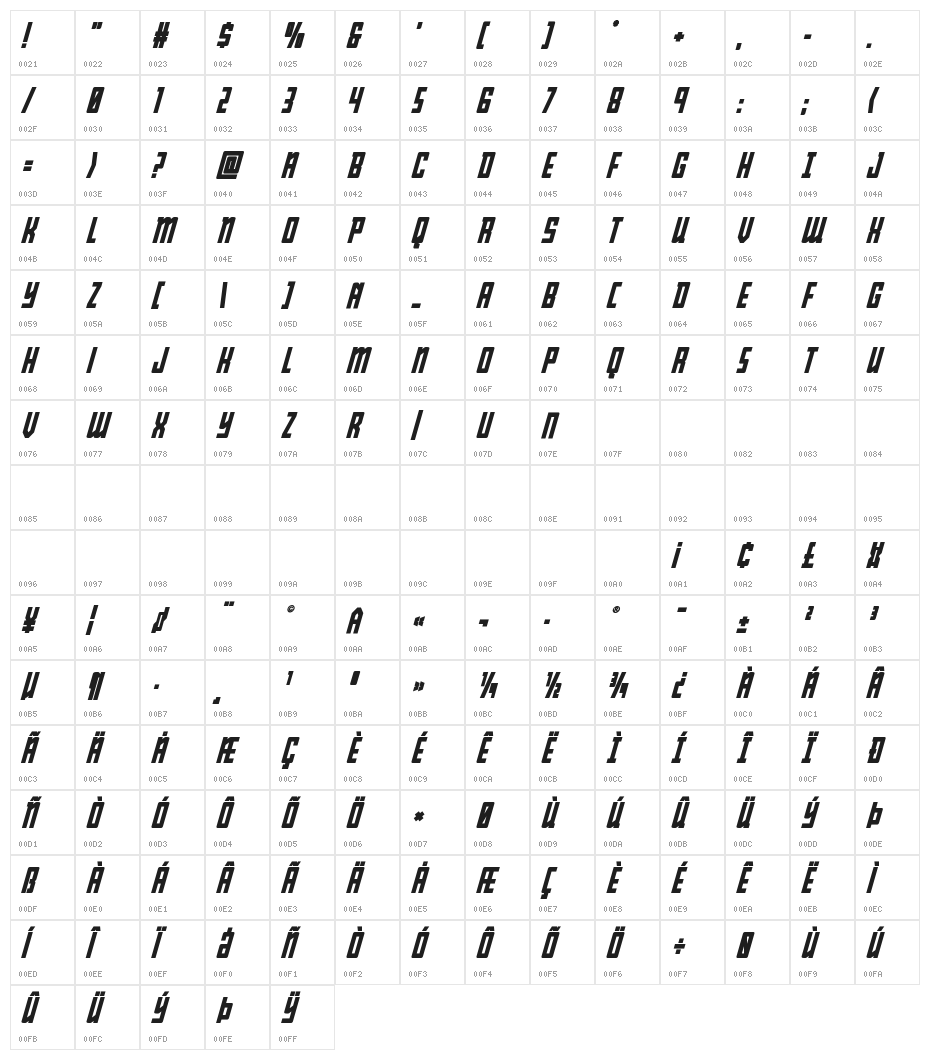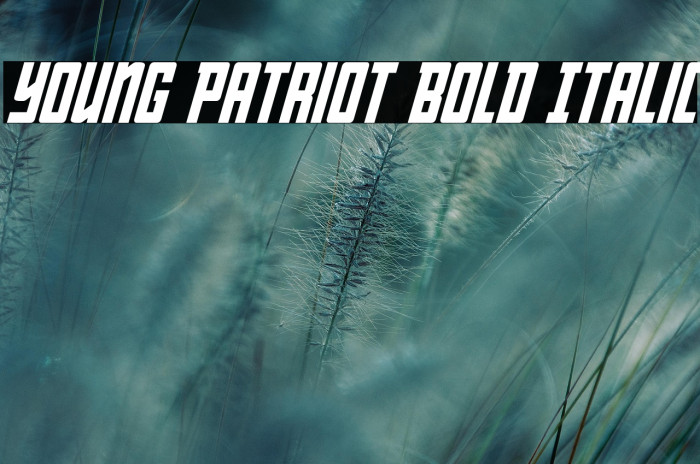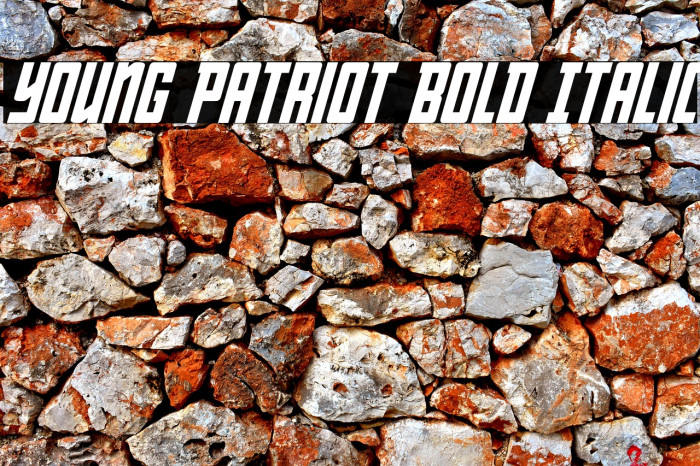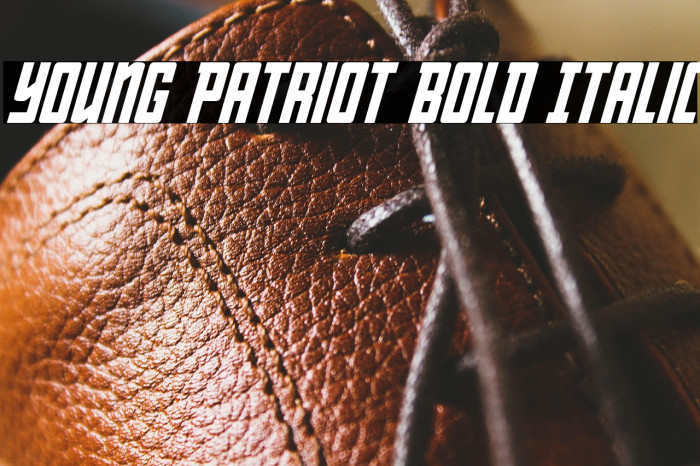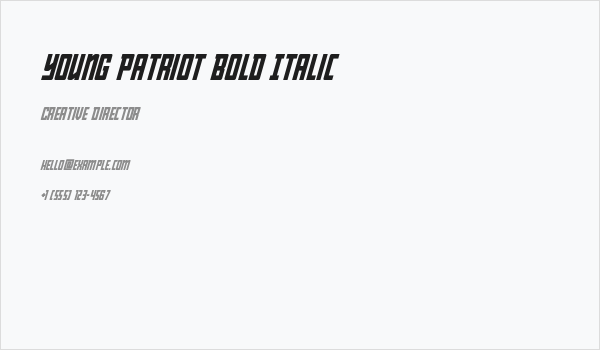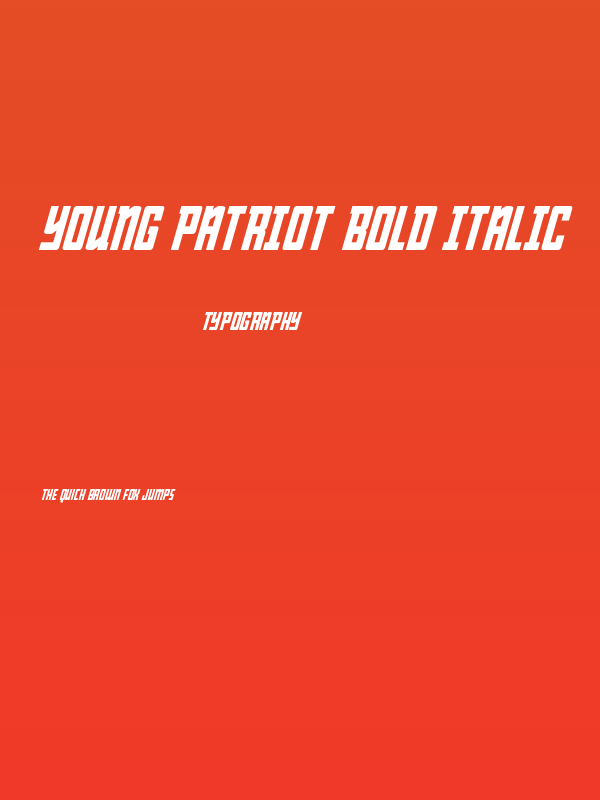
Young Patriot Bold Italic Font
Young Patriot Bold Italic Description
This font features a bold and italicized style with a strong, dynamic presence. The characters are sharply angled, giving a sense of movement and energy. The uppercase letters are prominent and commanding, while the lowercase letters maintain the same boldness with a slightly more compact form. The numerals are consistent with the overall style, ensuring readability and impact. Special characters are designed to match the bold and italicized theme, making them stand out effectively. This font is ideal for projects that require a strong, assertive look.
| Proposed Projects | Ideal for sports branding, action movie posters, and dynamic advertising campaigns. |